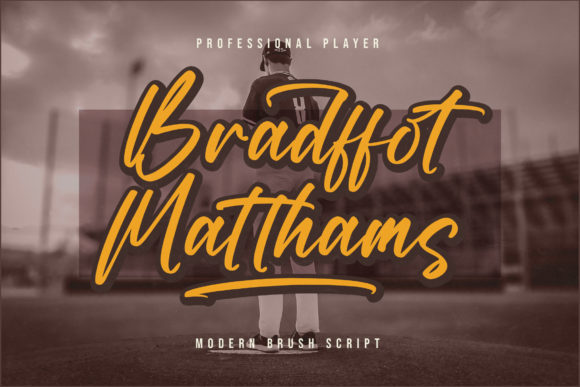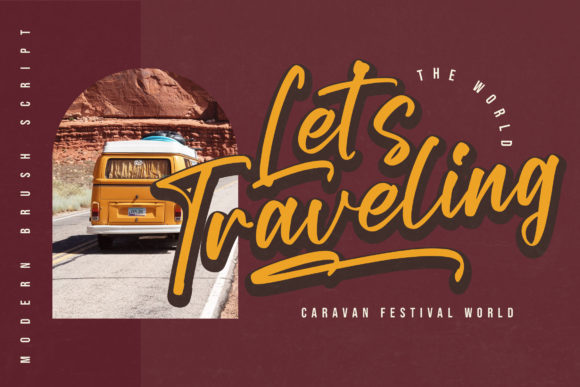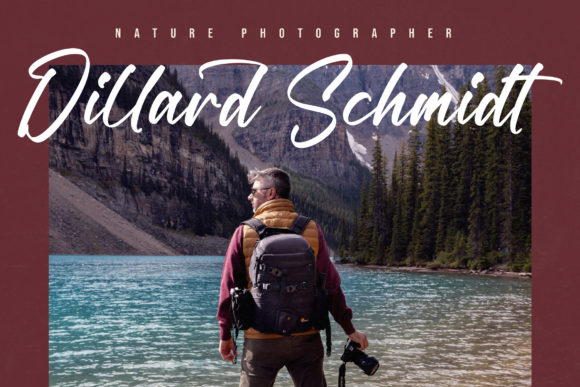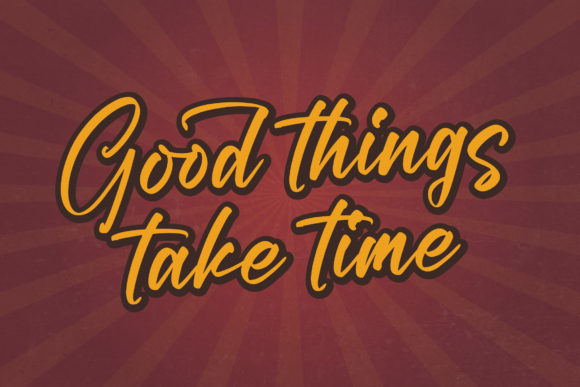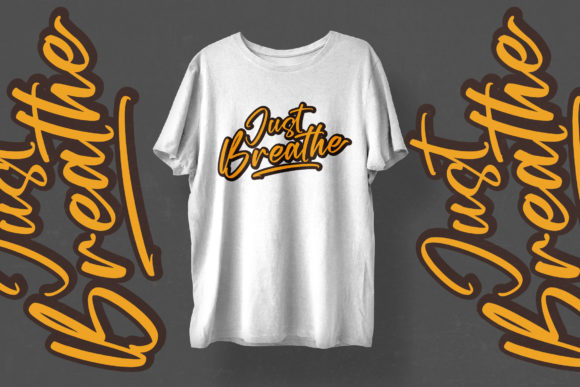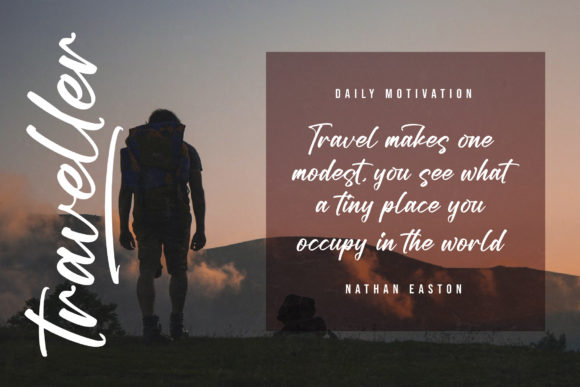
Introduction to Less Bright Font Font
Fonts play a crucial role in design, and the Less Bright Font font is a typeface that brings both character and versatility to any project. Whether you’re working on a branding project, a website, or a print design, the Less Bright Font font offers a unique style that can elevate your work.
Less Bright is a superb handwritten font that will make your work stand out through its elegant and curvy lines.
It is perfect for product packaging, branding project, magazine covers, social media, wedding, or just used to express words above the background .
Key Features of Less Bright Font Font
Why Choose Less Bright Font Font?
The Less Bright Font font is more than just a typeface – it’s a design tool that helps you communicate your message with style and clarity. Its unique character set and versatile design make it suitable for a wide range of applications, from elegant invitations to bold headlines.
With its carefully crafted letterforms and balanced proportions, the Less Bright Font font ensures readability and visual appeal across all mediums.
What makes Less Bright Font font special?
The Less Bright Font font stands out with its unique design, exceptional readability, and versatility across various design applications.